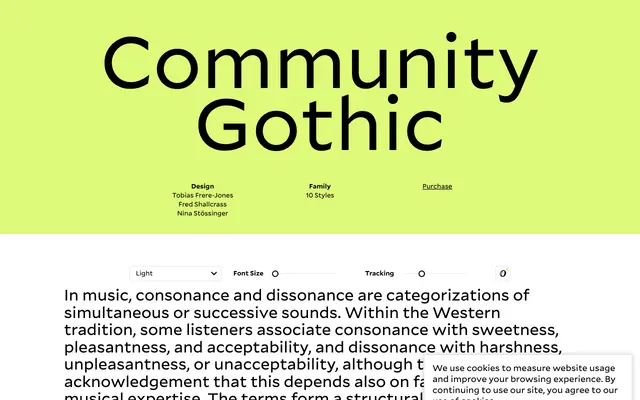
Community Gothic
Frere-Jones · Tobias Frere-Jones, Fred Shallcrass, Nina Stössinger
A deliberate revival of nineteenth-century jobbing grotesques by Tobias Frere-Jones, Fred Shallcrass and Nina Stössinger, built from mismatched historical sources to preserve the grit and irregularity of pre-digital type assembly.
Each of the ten styles was conceived and drawn independently, referencing American and European foundry sources, then integrated into a conventional weight-and-width progression for practical use. The designers built custom tools to pursue asymmetric curves and buckled lines, consciously resisting the uniformity typical of digitally drawn type. The result retains the coarseness of its nineteenth-century forebears while functioning as a coherent working family across five weights in normal and condensed widths.
Rooted in nineteenth-century sans serif jobbing types, Community Gothic is a grotesque that deliberately revives the coarse, irregular forms of that genre rather than smoothing them into a refined contemporary grotesque.